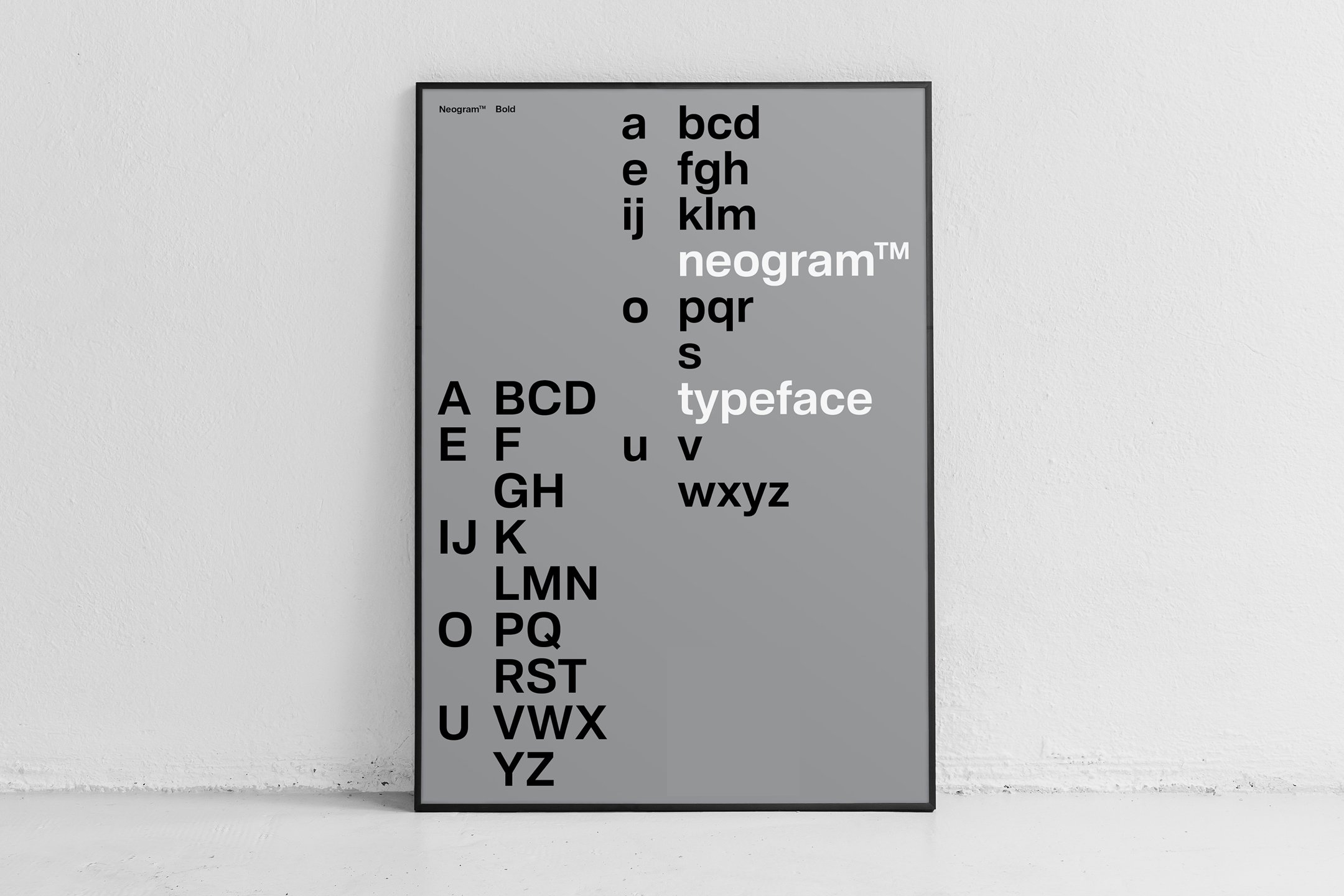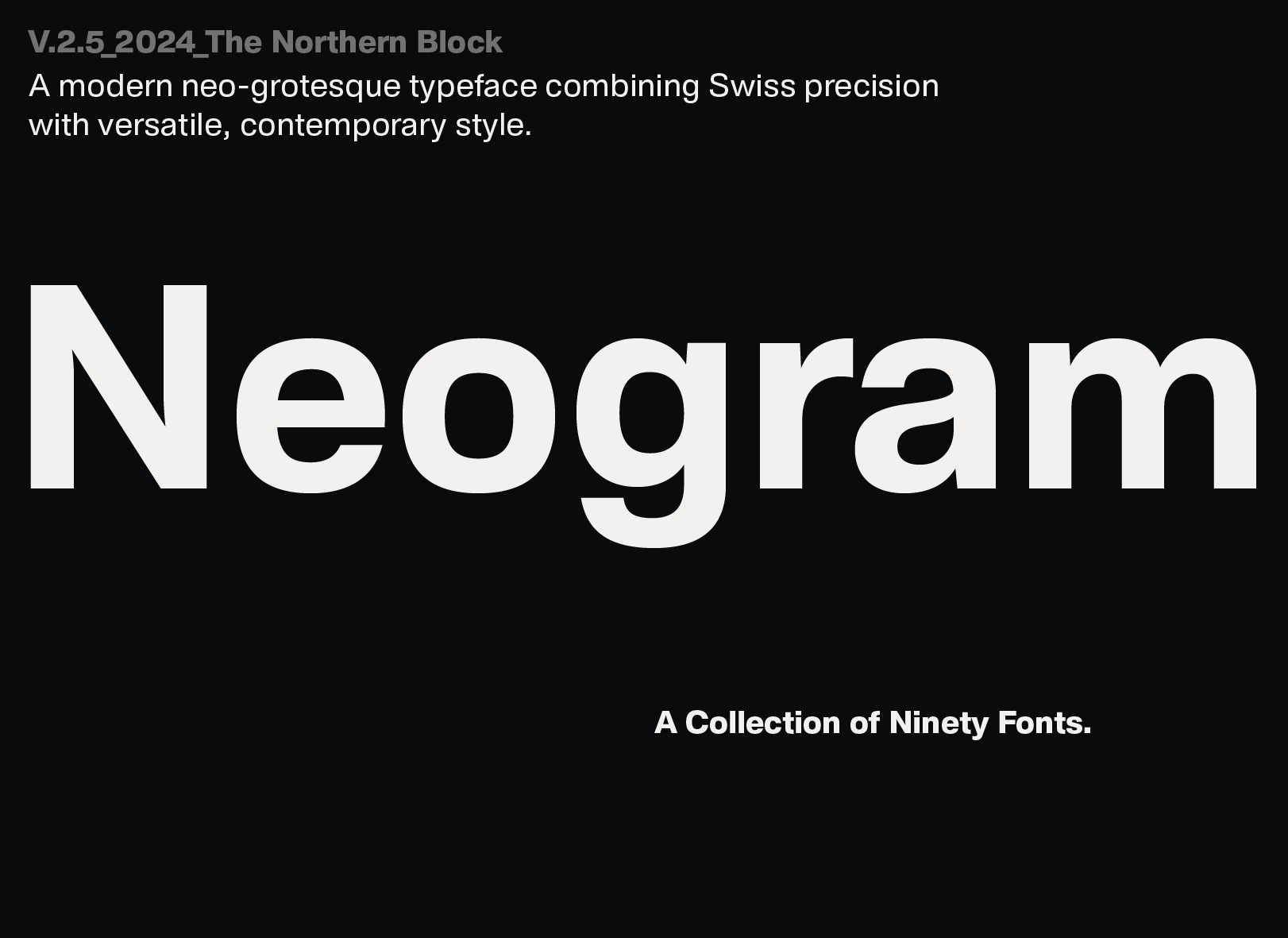
Original Design: Typographie, 1960 by Robert Büchler
Neogram, a modern neo-grotesque type family rooted in Swiss design principles, has developed significantly since its original release in 2012. The latest 2024 update introduces two new widths, SemiCondensed and Wide, expanding the type family’s versatility alongside the existing Normal, Condensed, and Expanded widths. This update also marks a shift to a more intuitive hand-eye approach to weight distribution, replacing the earlier mathematical strategy. Allows for more organic, visually cohesive adjustments across the various weights and widths, making Neogram an adaptable choice for various design contexts.
With 90 fonts, Neogram offers extensive OpenType features, including circle and squared numbers, a comprehensive set of directional arrows, tabular figures, fractions, ligatures, and case-sensitive forms. The type family supports a broad range of languages, covering Western, Southern, and Central European languages, making it an adaptable and robust choice for digital and print applications.